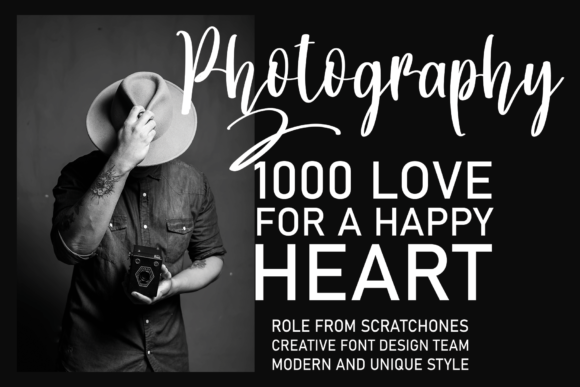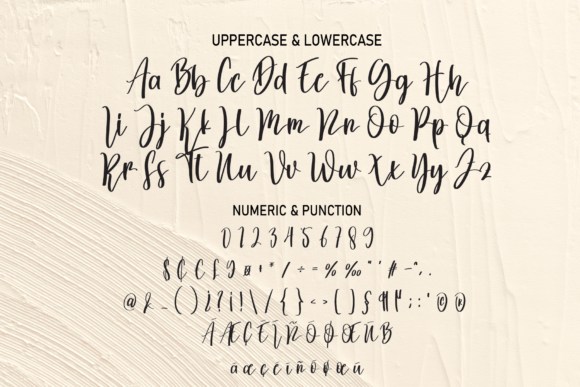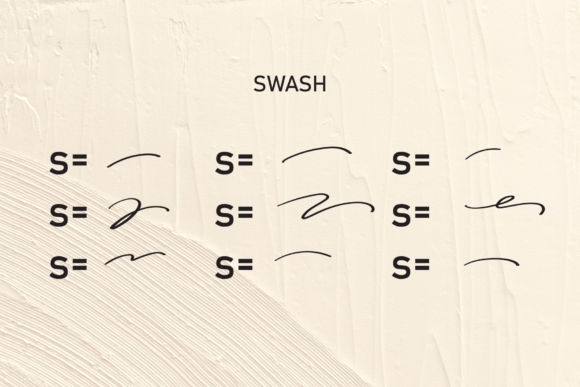
Introduction to Pink Cream Font
Have you ever been stuck in front of your computer, staring at a blank canvas, trying to find the perfect font to bring your creative project to life? I’m sure we’ve all been there. But what if I told you that there’s a font that could change everything? Introducing the Pink Cream Font, a stunning script font that exudes sophistication and elegance. With its luxurious alternates and ligatures, this font is the perfect design resource for any creative project.
What sets the Pink Cream Font apart is its versatility and high quality design. Whether you’re working on a project with a transparent background or a bold, eye-catching graphic, this font is sure to impress. And the best part? It’s available for free download, making it a valuable resource for designers of all levels.
Key Features of Pink Cream Font
- High-quality, hand-drawn design for a unique and creative project
- Transparent background for easy layering and customization
- Perfect for creative projects requiring a touch of elegance and sophistication
Honest Review: Pink Cream Font
I recently stumbled upon the Pink Cream Font, and I must say it’s a lovely addition to any creative project. As a designer, I appreciate high-quality fonts that can elevate the aesthetic of my work.
One of the standout features of this font is its transparent background, which makes it perfect for use on images, logos, and other design elements. It’s a great design resource for anyone looking to add a touch of elegance to their work.
- ✨ Elegant and sophisticated design
- ✨ Wide range of applications, from logos to headings
- ✨ High-quality design that’s perfect for free download
- ⚠️ Limited character set (may not be suitable for extended text)
- ⚠️ May not be the best choice for bold, eye-catching headlines
Overall, I’m impressed with the Pink Cream Font. It’s a great addition to any designer’s toolkit, and I appreciate the fact that it’s available for free download. While it may have some limitations, it’s a beautiful and elegant font that’s perfect for a variety of creative projects.
Tips for Getting the Most Out of Pink Cream Font
Experiment with different font sizes, styles, and colors to create visually appealing designs. Combine Pink Cream with other design elements to enhance your creative project.
The Pink Cream Font is suitable for various applications, including social media graphics, wedding invitations, and branding materials. Its versatility and high quality make it an ideal design resource for creative professionals and hobbyists alike.
Can I use the Pink Cream Font on a transparent background?
Yes, the Pink Cream Font has a transparent background, making it ideal for use on images or videos with complex backgrounds. This feature allows you to easily composite the font with other design elements, giving you more flexibility and control over your design.